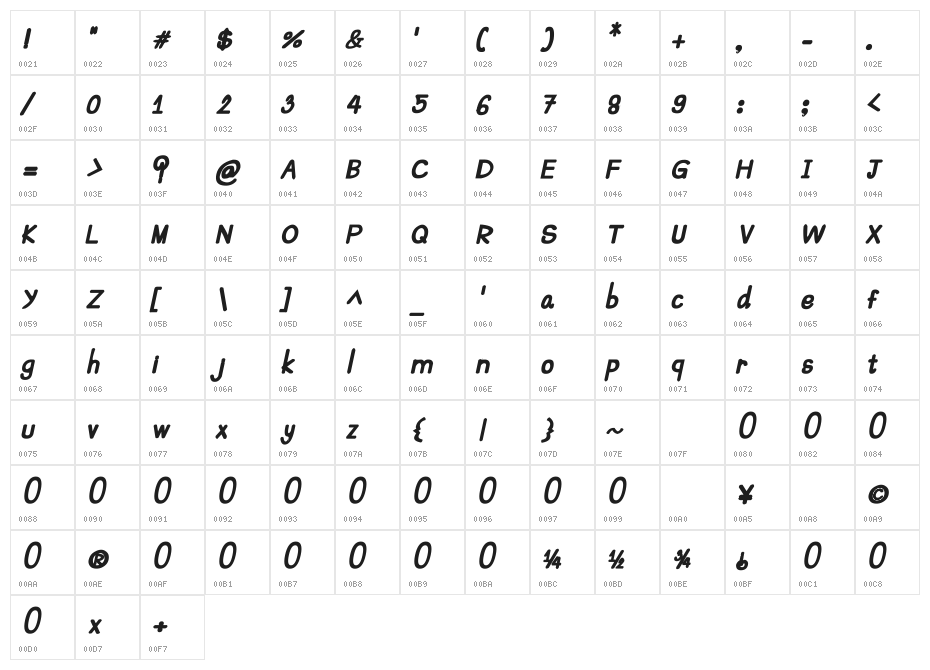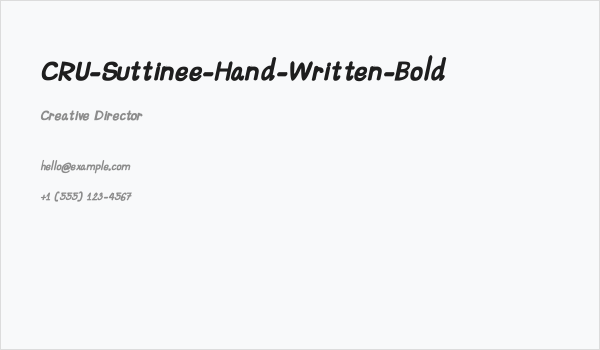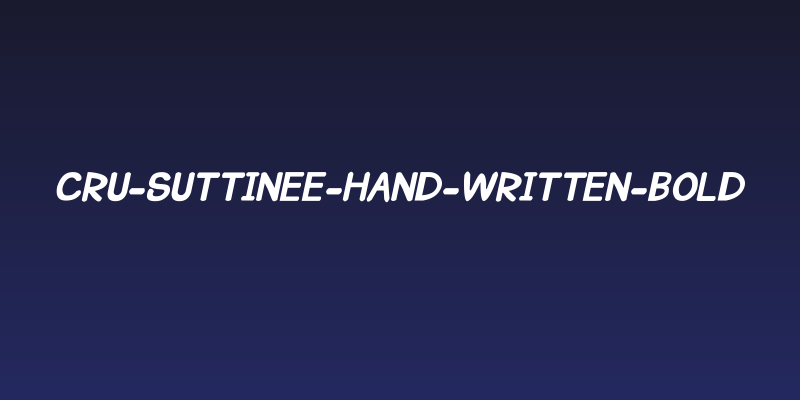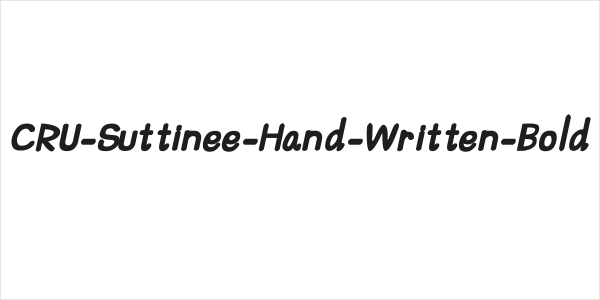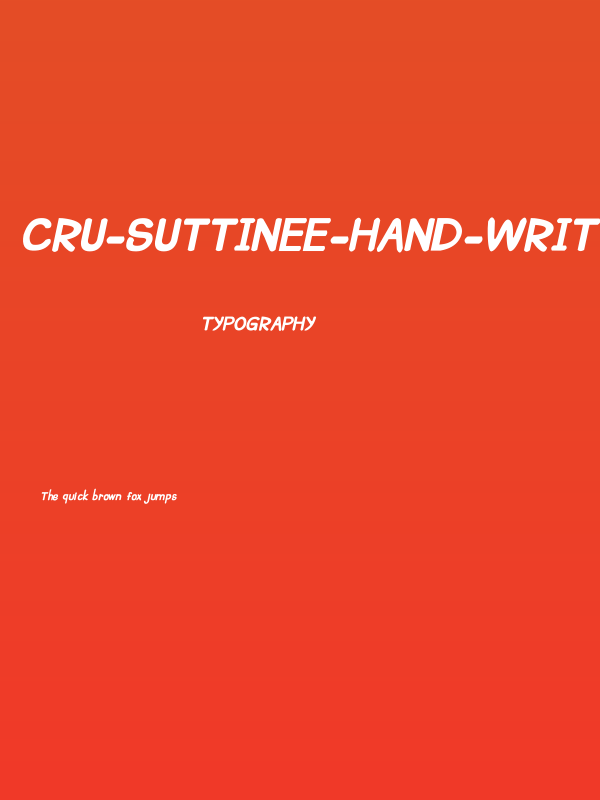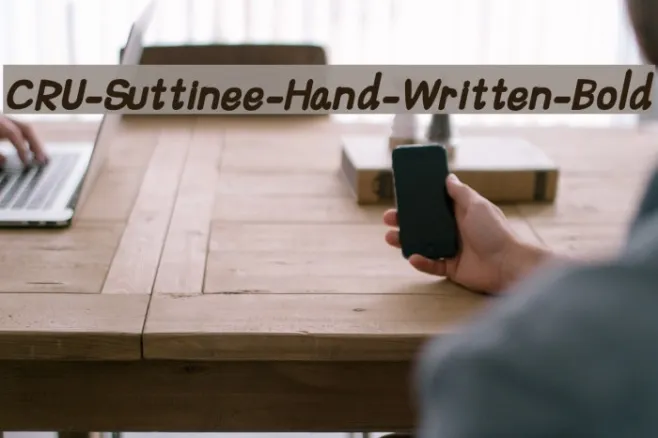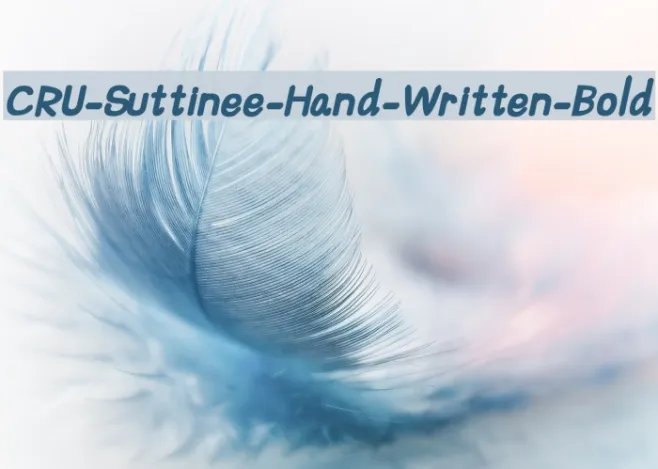
CRU-Suttinee-Hand-Written-Bold Font
CRU-Suttinee-Hand-Written-Bold Description
This font exhibits a bold, handwritten style with a playful and casual appearance. The letters are slightly slanted, giving a dynamic and energetic feel. The strokes are consistent in thickness, providing a uniform look across all characters. The uppercase and lowercase letters maintain a cohesive style, with rounded edges and smooth curves. Numbers and special characters are designed to match the overall aesthetic, ensuring versatility in various applications. The font's informal nature makes it suitable for creative and relaxed contexts.
| Use Case | Headlines, Logos, Informal text |
| Proposed Projects | Ideal for greeting cards, invitations, children's books, and casual branding projects. |